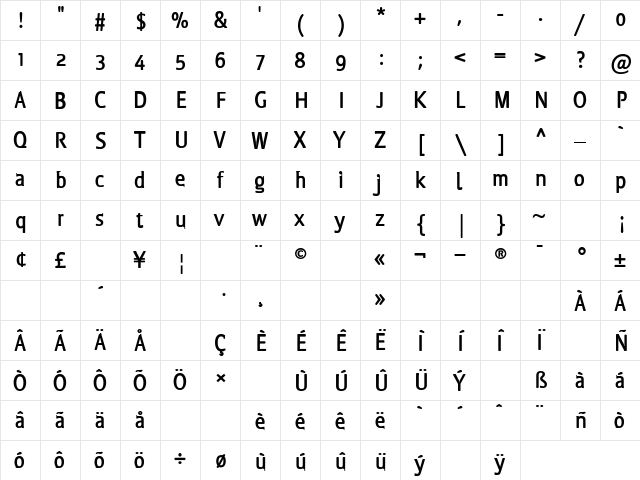
Latext Bold
Design Context for Latext Typeface
Latext offers clean, dependable letterforms without strong stylistic allegiance, making it a practical choice for designers who need flexibility. The heavy weight commands attention and anchors typographic hierarchies.